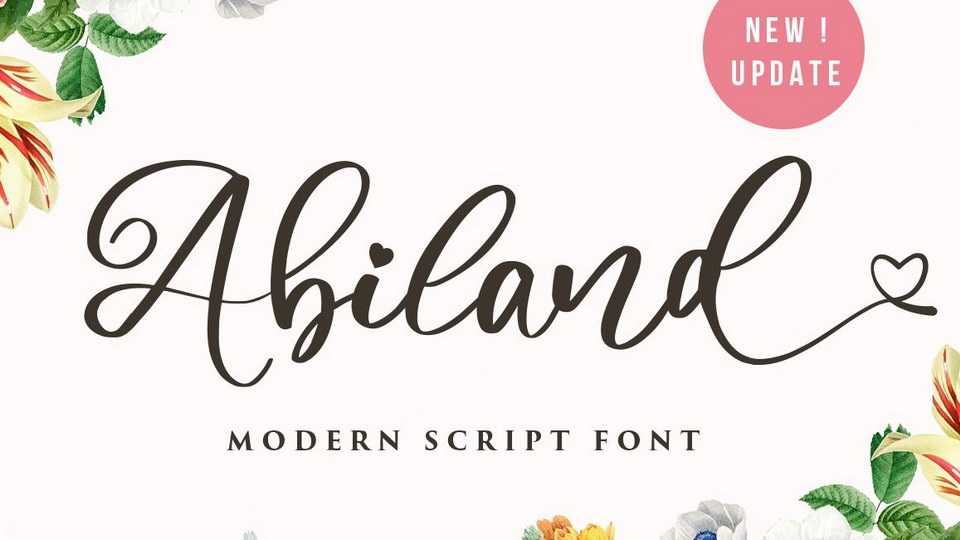
Download Abiland font, a beautiful script with nice flow, inspired by a sweet love contemporary handwriting typefaces. Abiland is ready to add unique look and bloom on your design.
Designer: Vultype Co